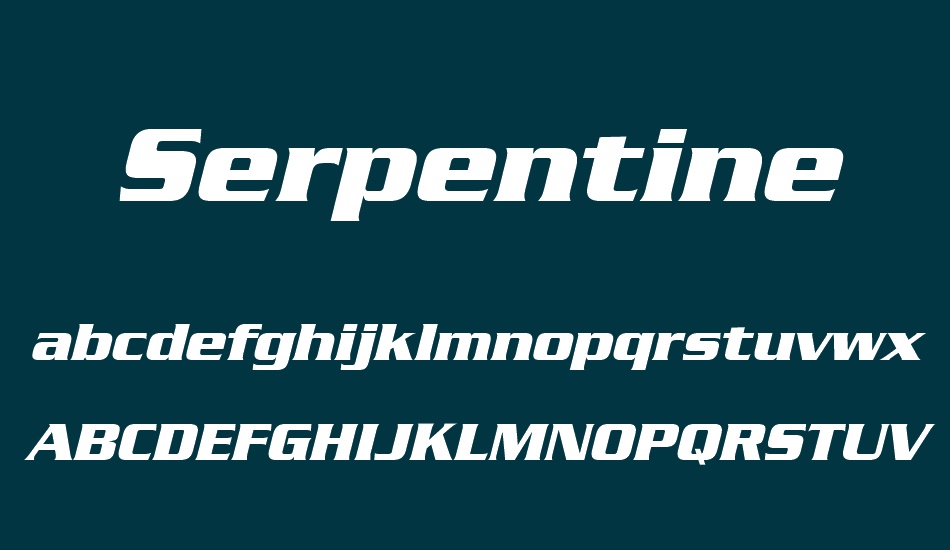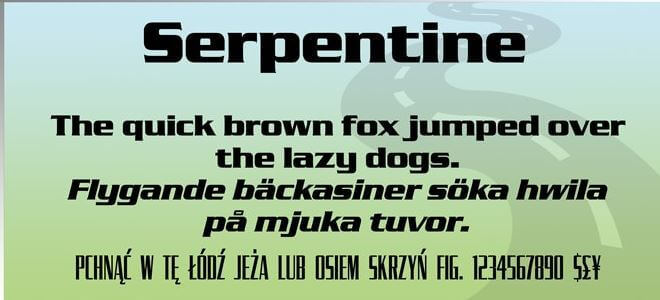
Serpentine Font
Serpentine Font is one of the most used fonts on websites and also in Adobe. This typeface is famous for Pairing and bold and italic function. This font is herbal, has curved edges, and is one of the maxima used business brand fonts. Specific famous sports have all used this font as part of their branding or advertising and marketing campaigns.
Similarly, the princess sofia font is a re-invention of the biker font which modified created. A skinny slab serif typeface, regarding caps, small caps, and punctuation. This typeface is also diagnosed with textual content generation abilities. Serpentine Font Free A font dressmaker produced this very private font family.